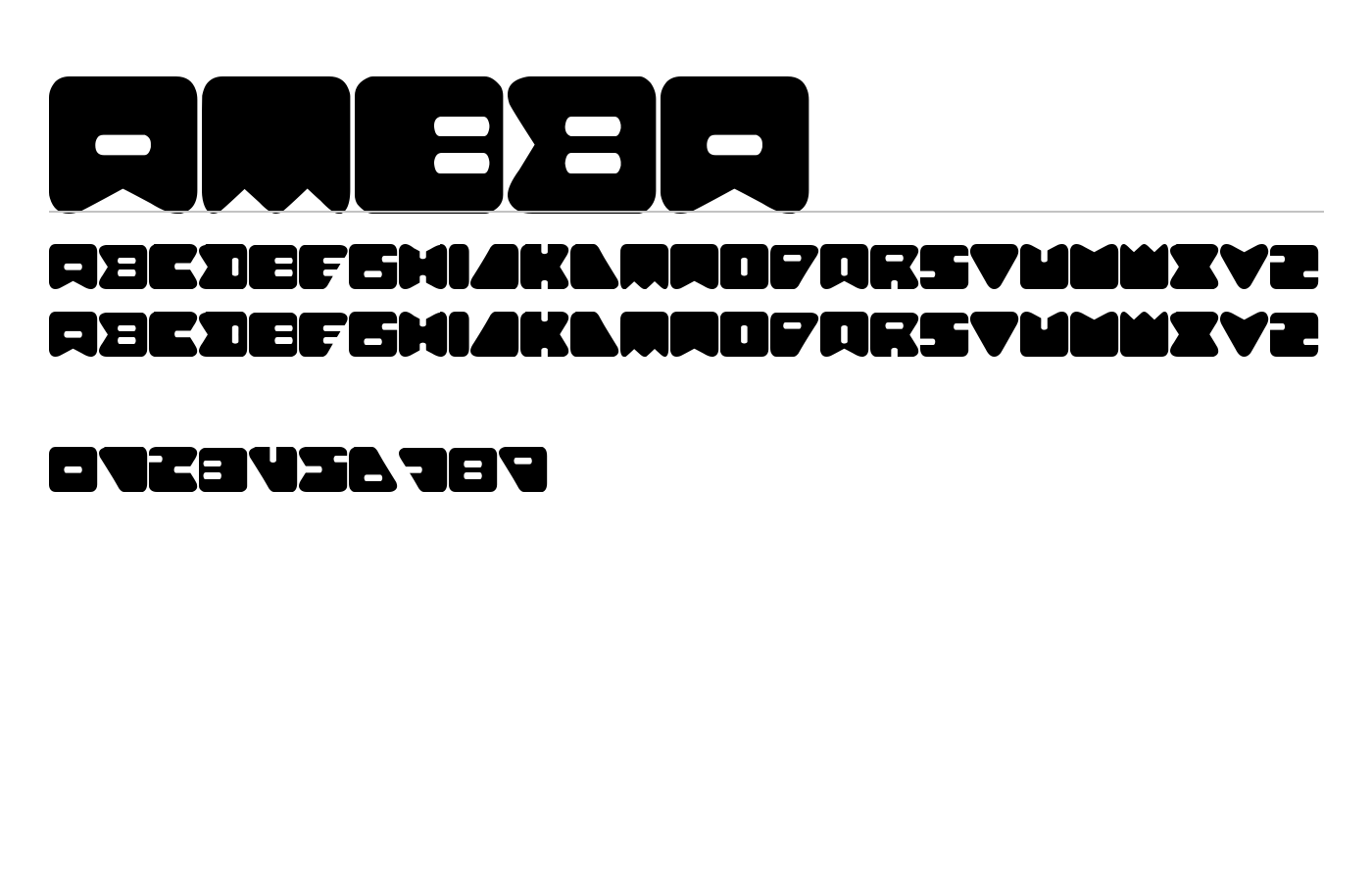
Ameba Font is a bold, playful display font with thick, geometric letterforms that feature rounded edges and unique notches, giving it a distinctly modern and quirky personality. Its heavy weight and compact width make it perfect for eye-catching headlines, logos, or creative branding that seeks a fun and unconventional vibe. This font works especially well when you want to stand out with a bold, friendly style that feels both futuristic and approachable.
Ameba Font
About Ameba Font
| Font family | Ameba Font |
| Designer | Carlos Matteoli |